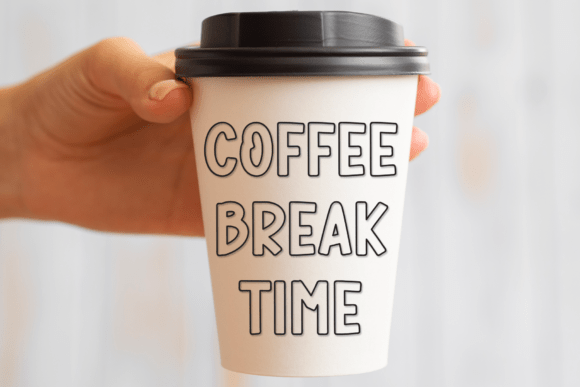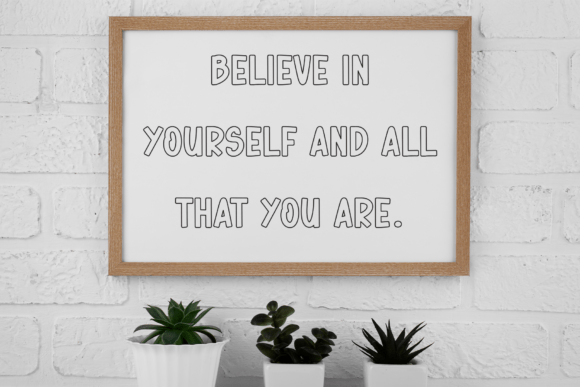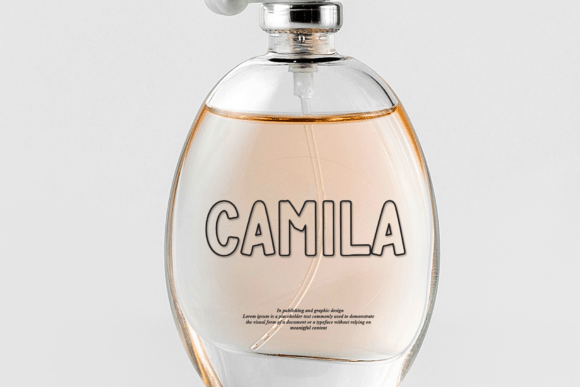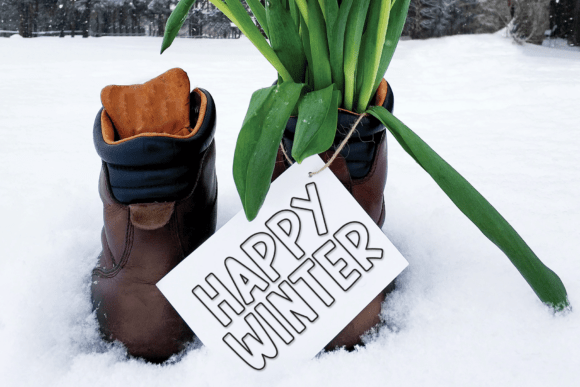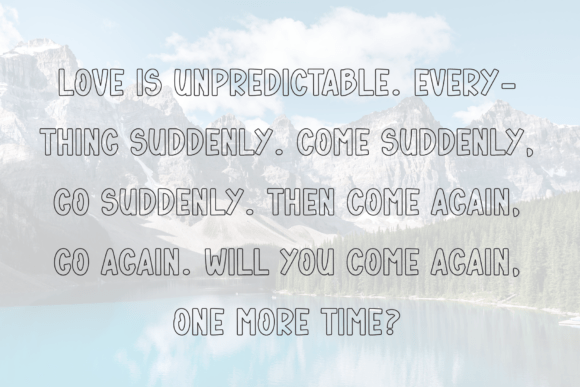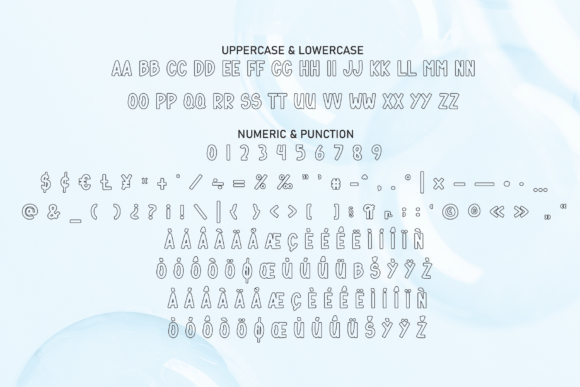
Unveiling the Captivating Allure of Bubble Outline Font
Have you ever been in the middle of a design project, and suddenly, you’re stuck on finding the perfect font? I recall a recent experience while working on a wedding invitation design. My client wanted something that exuded joy, playfulness, and romance. After scouring through numerous font libraries, I stumbled upon the enchanting Bubble Outline Font. It was love at first sight! ✨
A Personal Review: What I Love and a Few Quirks
• ✨ Vibrant and Inviting: This font radiates an infectious energy that’s perfect for designs that require a lively touch.
• ✅ Versatile: Bubble Outline Font is suitable for various design projects, from wedding invites and notes to social media graphics and more.
• 💕 Emotional Connection: The font’s charming and spirited nature helps create an emotional connection with your audience.
A Few Quirks to Consider
• 🤔 Legibility at Small Sizes: While the font shines at larger sizes, it may lose some legibility when used at smaller sizes (below 10-12 points).
• ⚠️ Limited Formality: Due to its playful nature, Bubble Outline Font might not be the best fit for formal or corporate designs.
The Designer Inspiration Behind Bubble Outline Font
Imagine a sunny day, filled with laughter and joy. This is the feeling that inspired the creation of Bubble Outline Font. The designer, fueled by a passion for playfulness and creativity, crafted a font that embodies the carefree spirit of a perfect summer day. With every letter, the designer aimed to infuse a sense of delight and wonder.
Q: What type of designs is Bubble Outline Font best suited for? A: Bubble Outline Font is perfect for designs that require a playful, lively touch, such as wedding invites, notes, and social media graphics.
Q: Does Bubble Outline Font support OpenType features? A: Yes, Bubble Outline Font supports OpenType features, including stylistic alternates and glyphs, which can be accessed through compatible design software.